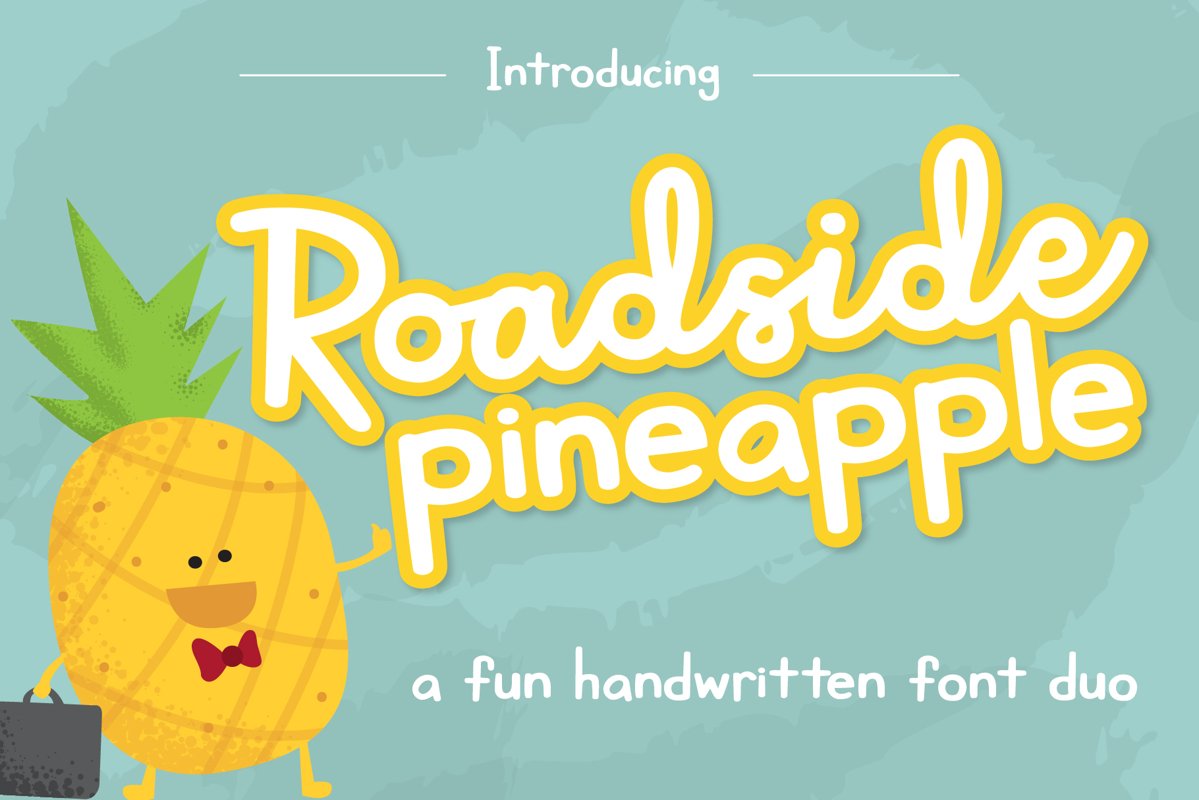
Roadside Pineapple Font Duo
Introducing, Roadside Pineapple. A font that was inspired by me buying pineapple at a fruit stand. Inspirations can come from anywhere apparently. This PUA font is perfect for professional designer, social media, crafters, and children book writer.